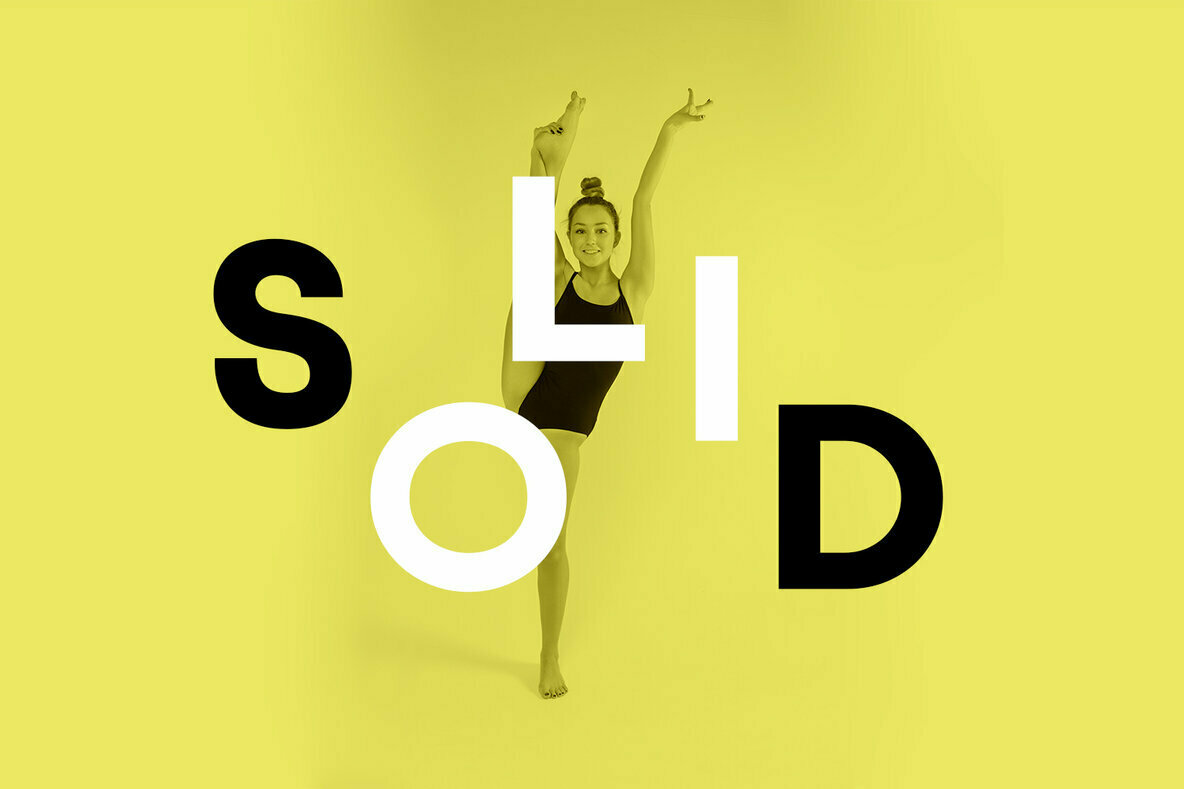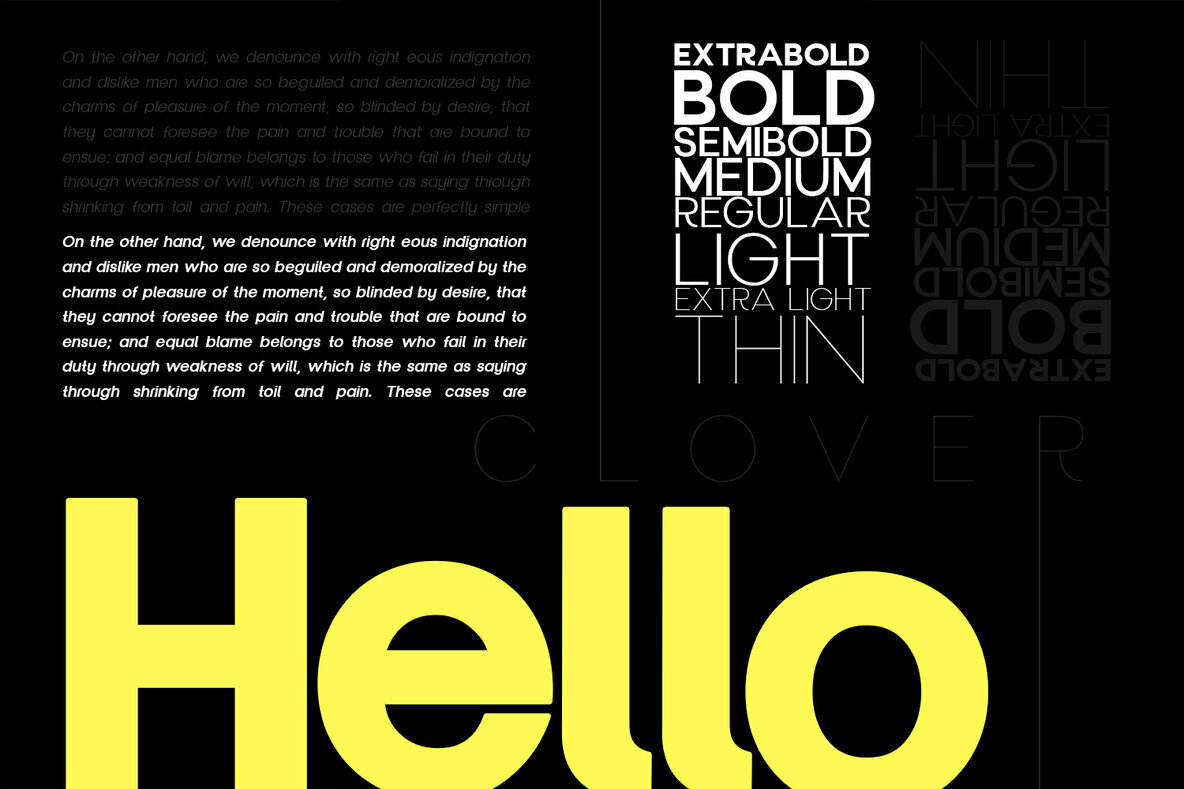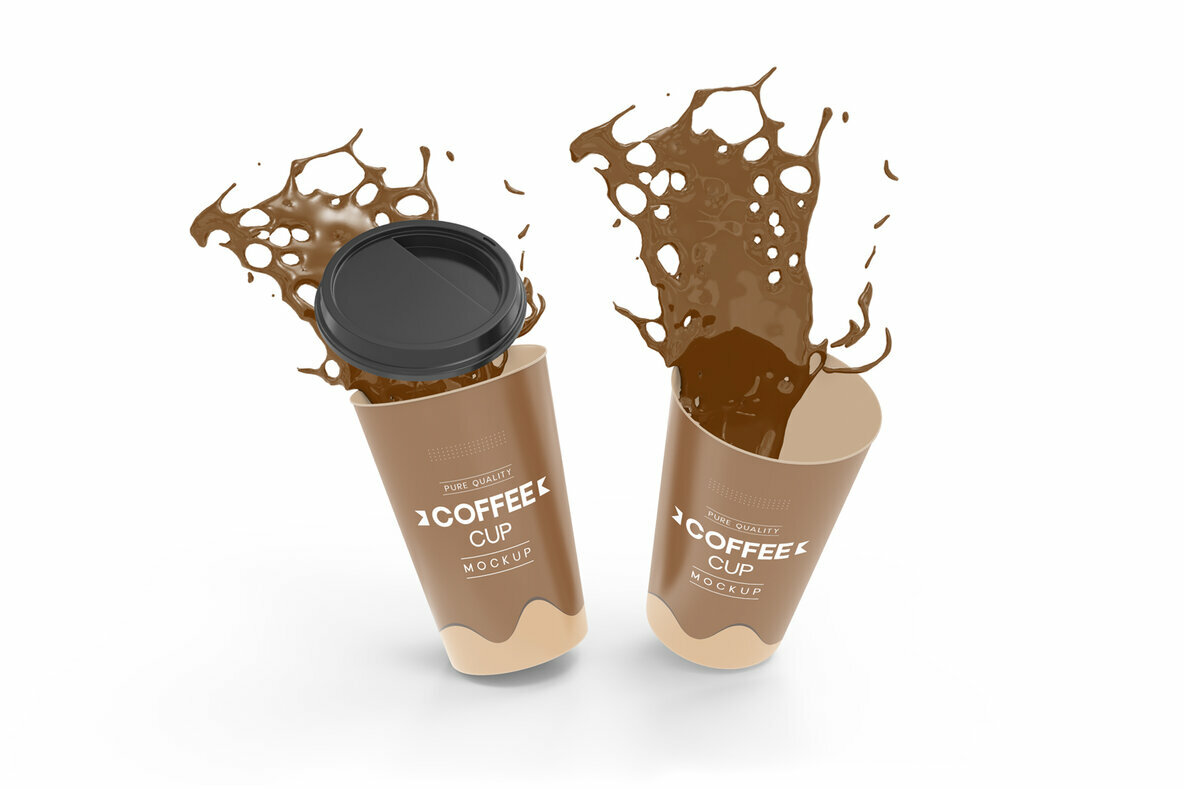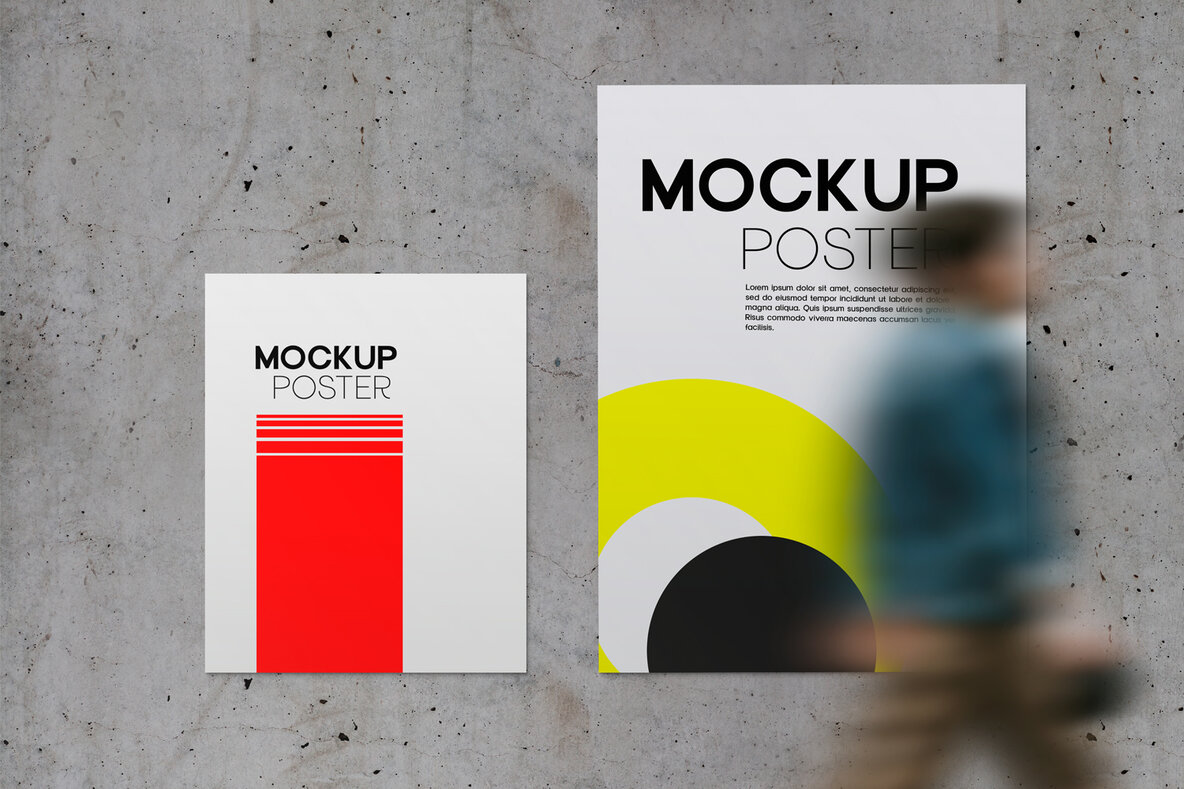
Clover Display Font
Clover Display offers a unique synthesis of modern elegance, showcasing versatility across both large and small scales. Perfect for branding, logos, and headlines, this typeface enhances magazine covers, film posters, and is especially effective as stylish text overlays on various backgrounds. The distinctive mix of strong capitals and smooth, open lowercase grants its adaptability in a multitude of projects.Clover Display: Modern Elegance in Typography